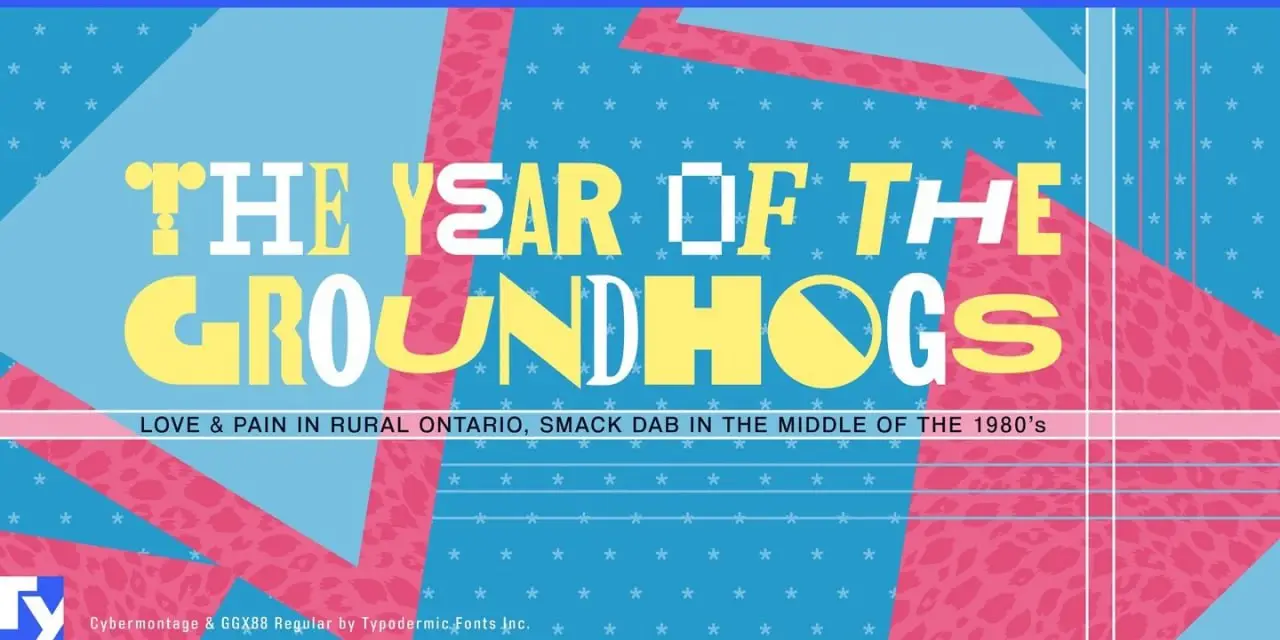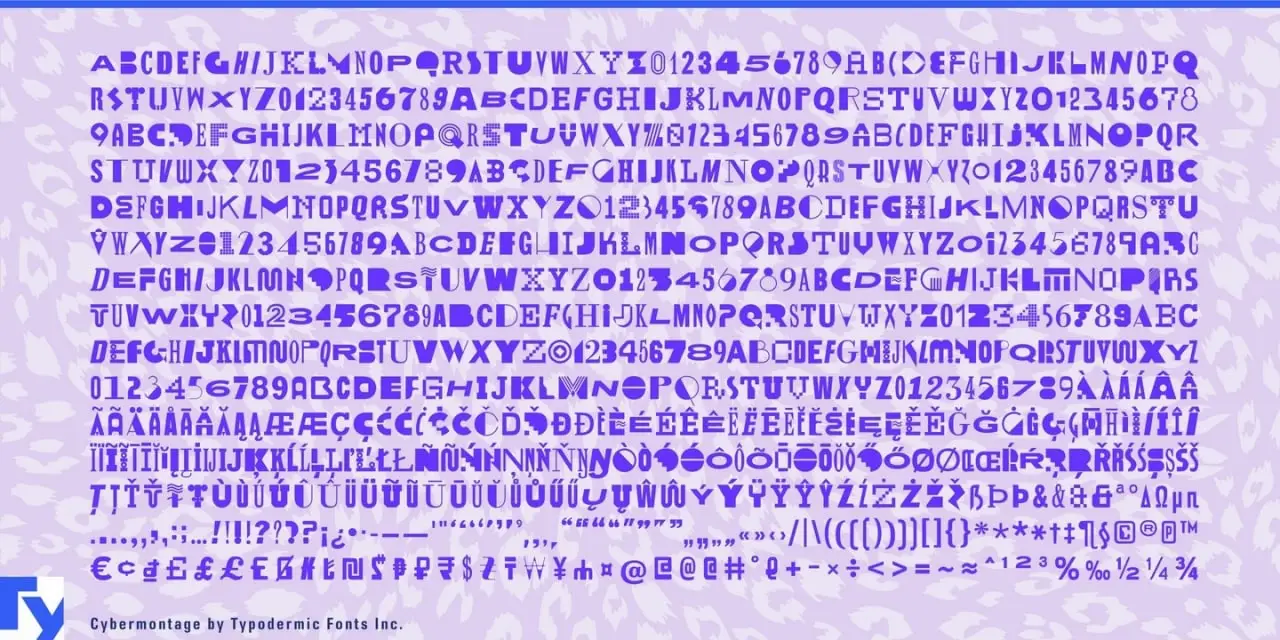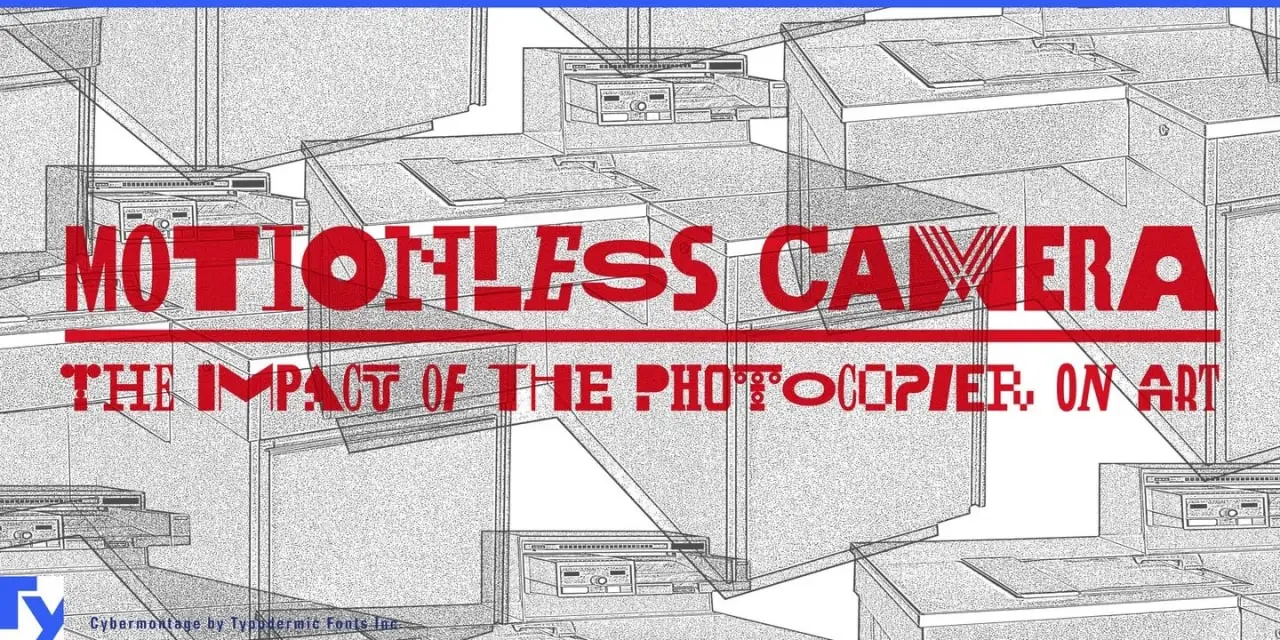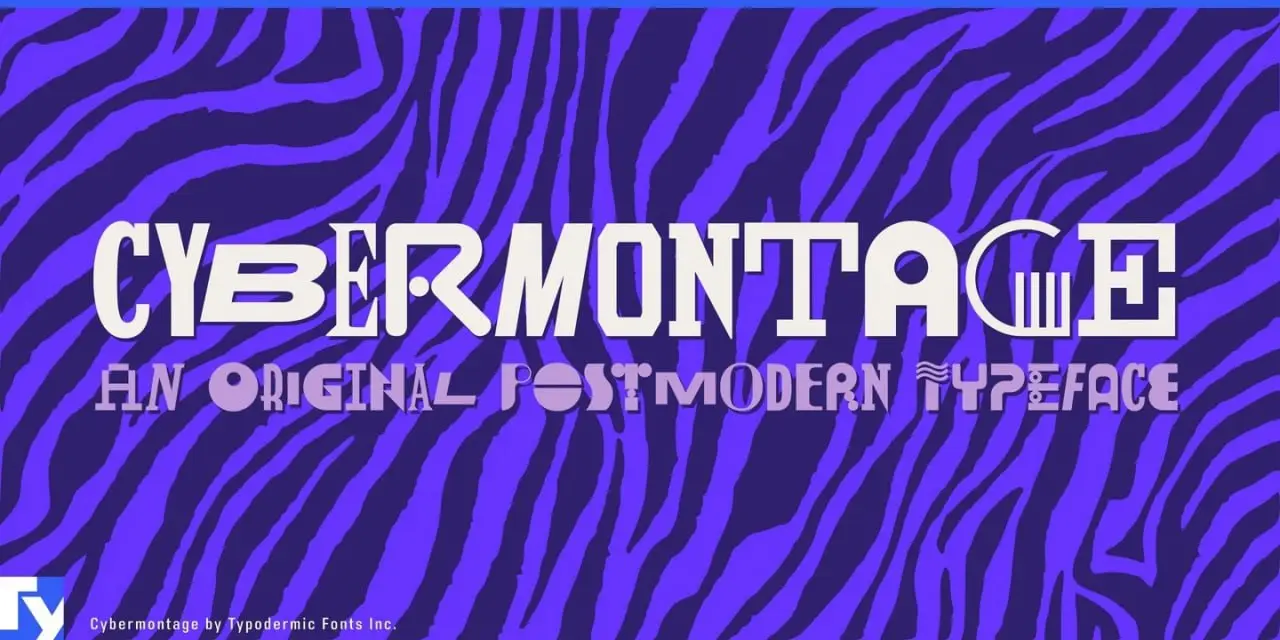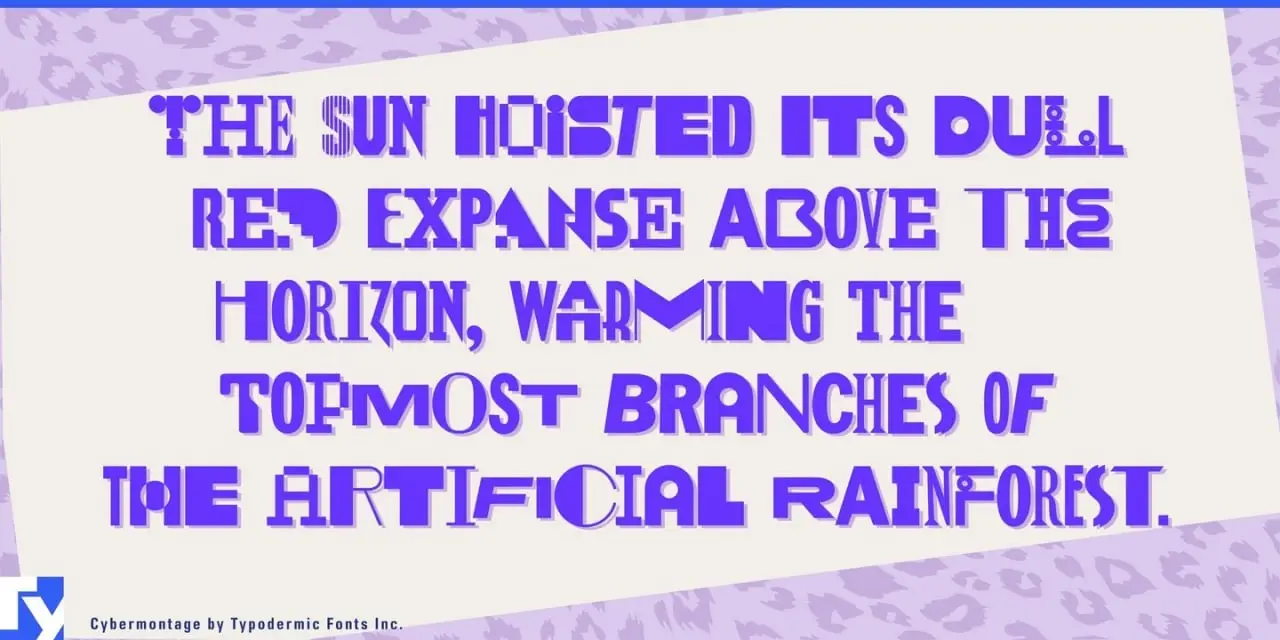
Cybermontage Font By Ray Larabie
Introducing the Cybermontage Font by Ray Larabie, a unique typeface that blends modern aesthetics with a touch of retro flair. This font features a bold and geometric design, making it perfect for a variety of creative projects.
• Stylish and contemporary geometric design
• Uppercase and lowercase letters included
• Numerals and punctuation marks available
This font is ideal for branding, logo design, web graphics, and print materials. Its distinctive style can elevate your projects, making them stand out in any medium.